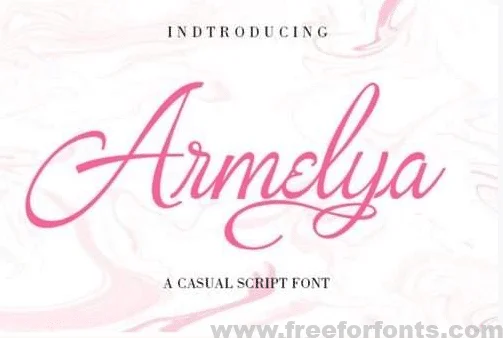
JANUARY 2019 Armelya Font
JANUARY 2019 Armelya Font is perfect for elegant vintage branding, sophisticated retro designs, classic fashion labels, timeless wedding invitations, refined beauty salon signage, graceful stationery projects, nostalgic marketing campaigns, heritage brand identity, upscale boutique logos, and distinguished cultural event materials.
JANUARY 2019 Armelya Font is exciting because it embodies timeless elegance and vintage sophistication through carefully crafted letterforms that evoke classic beauty and enduring style with distinguished charm. This exquisitely designed typeface combines historical typography influences with contemporary refinement, making it perfect for brands that want to communicate heritage quality, timeless appeal, and sophisticated tradition that transcends fleeting trends.
The JANUARY 2019 Armelya Font family includes elegant weights with vintage-inspired character styling, featuring classic decorative elements and traditional flourishes. The font showcases period design details, heritage-refined proportions, and timeless character characteristics that create a comprehensive typographic system for sophisticated and traditionally-inspired brand applications.
JANUARY 2019 Armelya Font Free Download provides designers with access to premium vintage typography that brings authentic classic elegance to contemporary design projects. This expertly crafted typeface has been developed to capture the enduring beauty and sophisticated tradition of historical typography while ensuring optimal performance in modern luxury applications. The font's timeless character and vintage authenticity make it ideal for heritage brands and classically-focused businesses.
The vintage sophistication of JANUARY 2019 Armelya Font makes it an essential tool for luxury retailers, heritage organizations, and traditional service providers that need typography capable of communicating timeless quality and classic elegance. The font's distinguished character helps establish immediate associations with heritage craftsmanship, enduring value, and sophisticated tradition that appeal to discerning consumers appreciating classic beauty.
Heritage brands, vintage boutiques, and traditional luxury services consistently choose JANUARY 2019 Armelya Font for its ability to convey classic elegance and vintage sophistication through typography. The font excels in applications where establishing heritage credibility and timeless appeal are essential to brand positioning, making it particularly effective for luxury goods, traditional services, and heritage brands targeting sophisticated consumers valuing classic quality.
This font's comprehensive character set includes vintage-styled letterforms, classic numerals, elegant punctuation marks, and heritage symbols that support authentic traditional typography composition. The consistent timeless styling maintains the vintage elegance theme throughout all characters while ensuring professional readability across all heritage and classic design projects requiring JANUARY 2019 Armelya Font Free Download functionality.